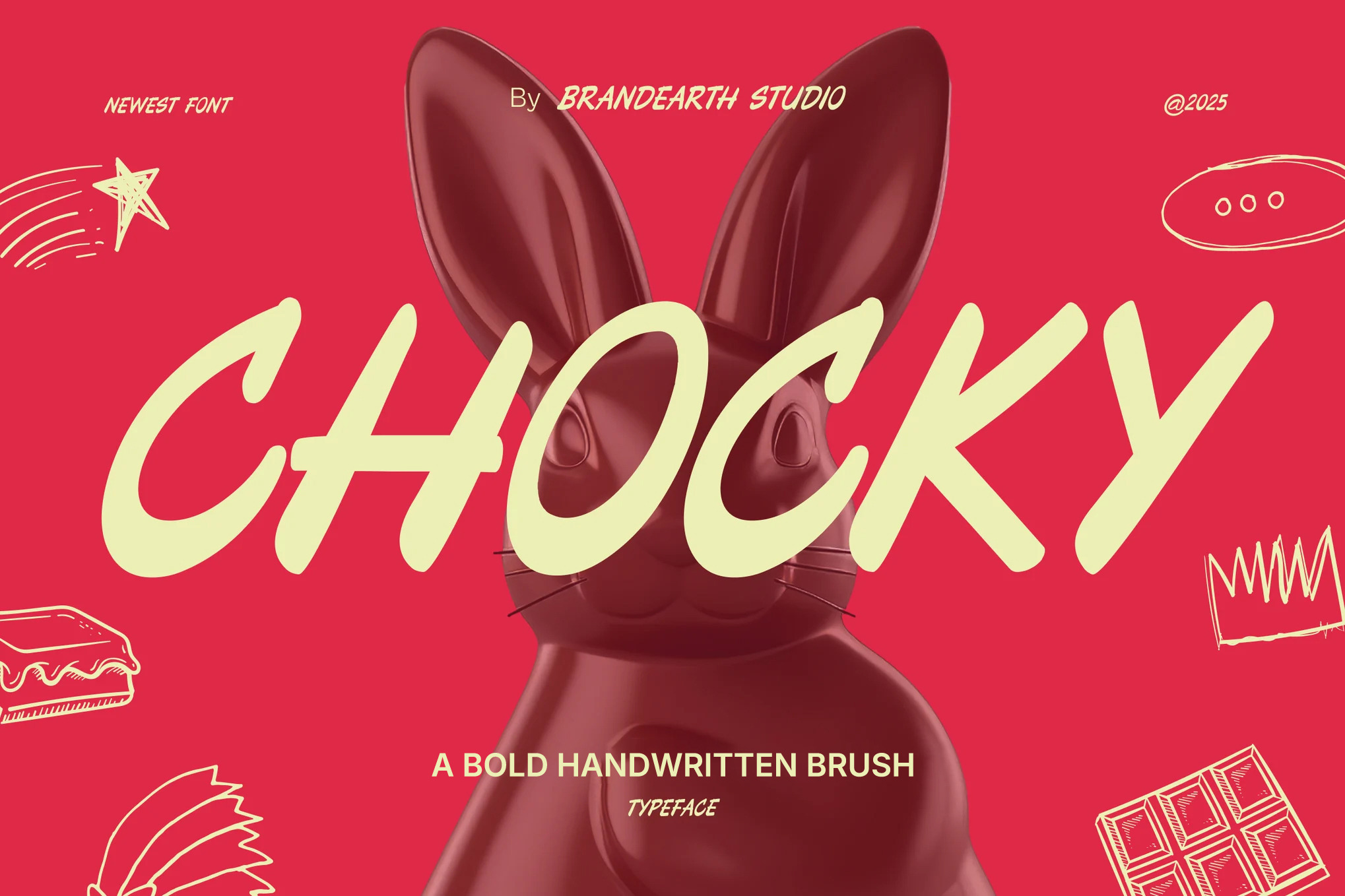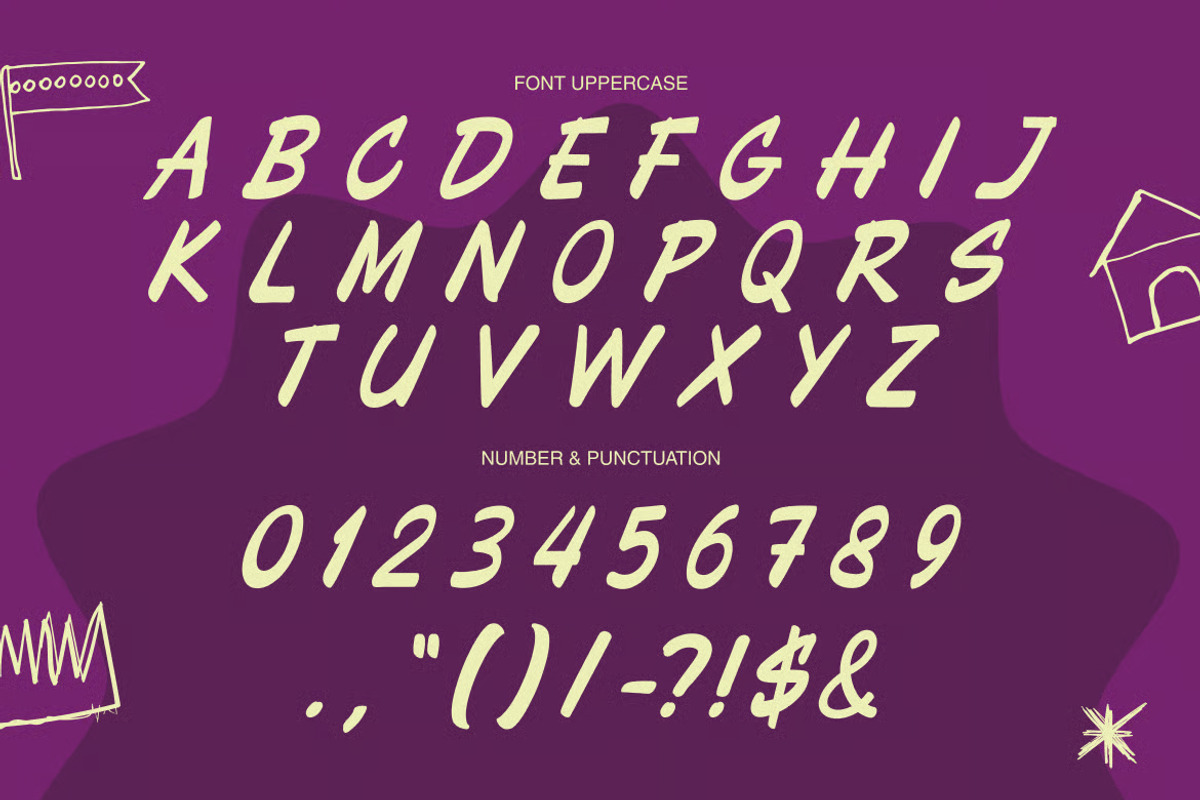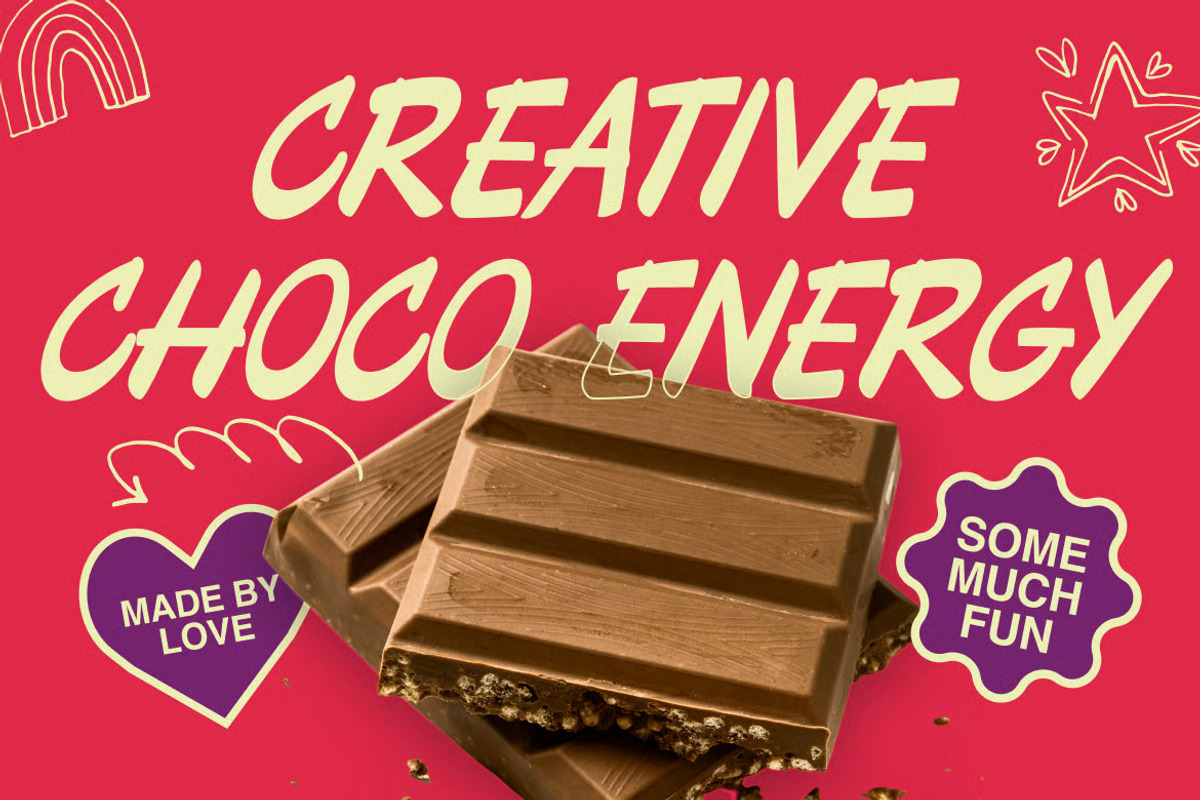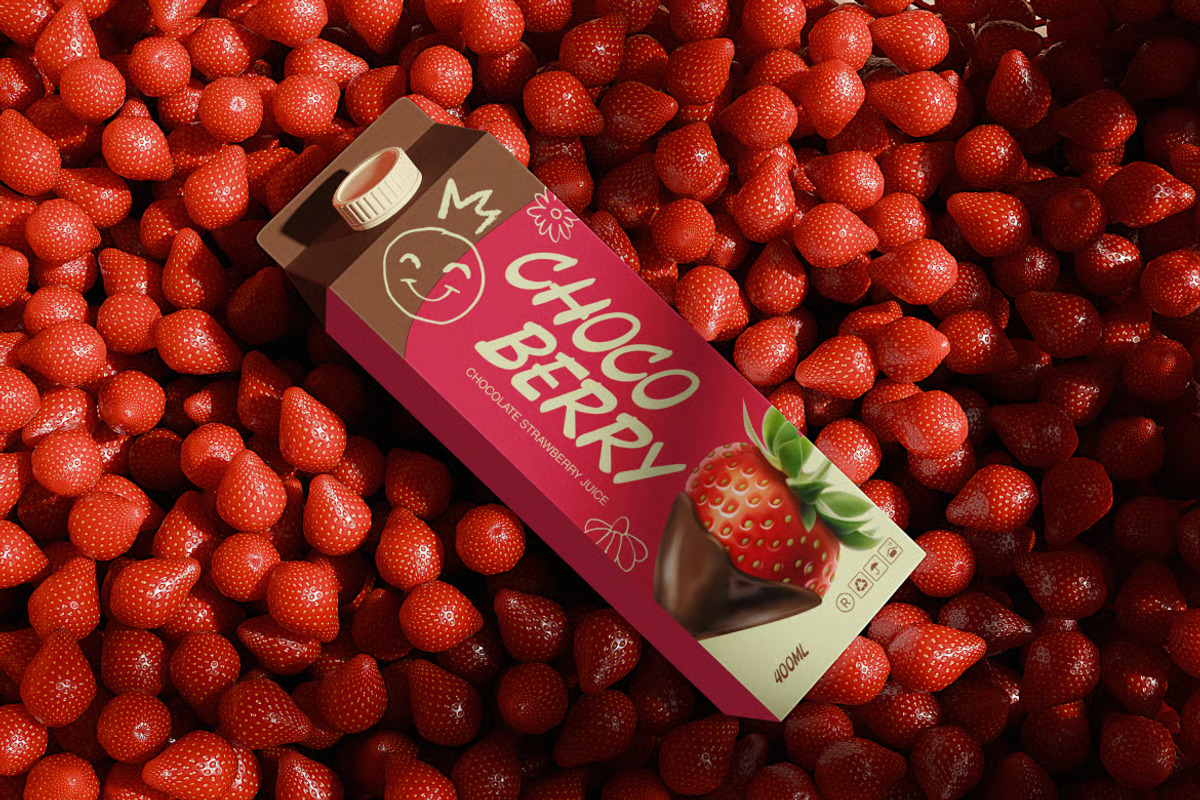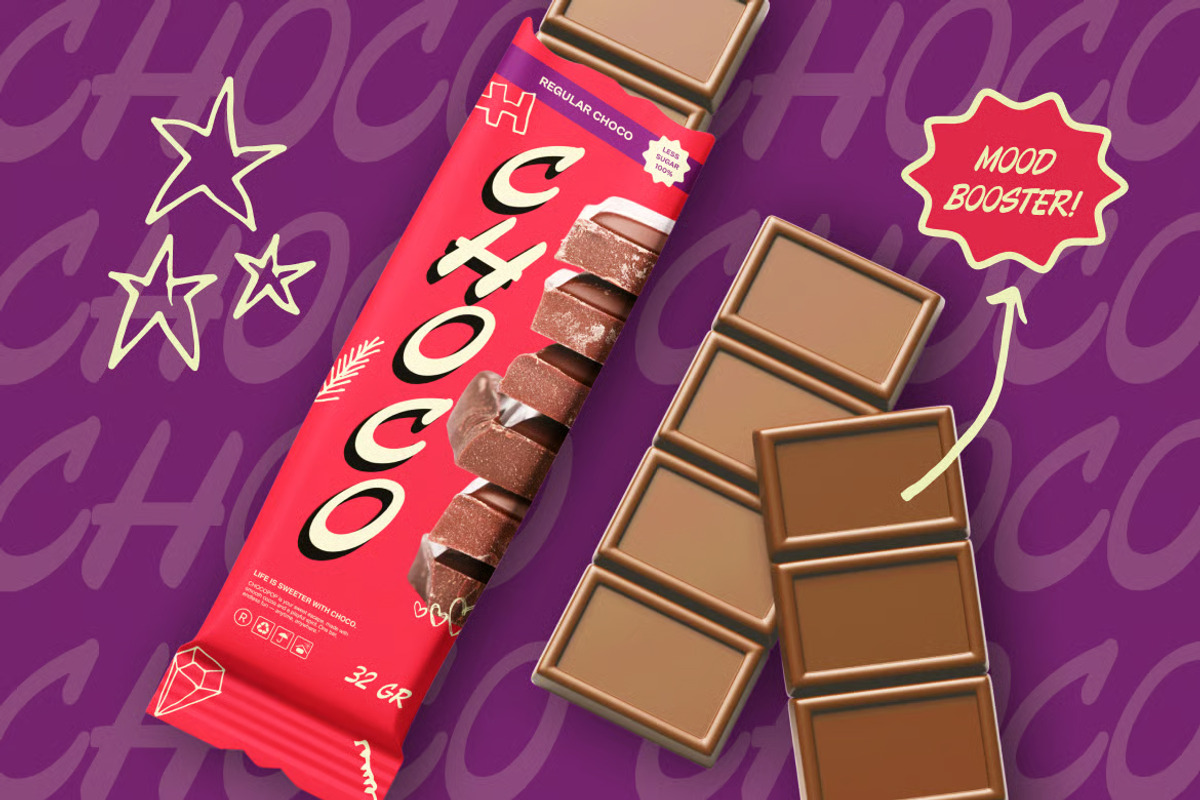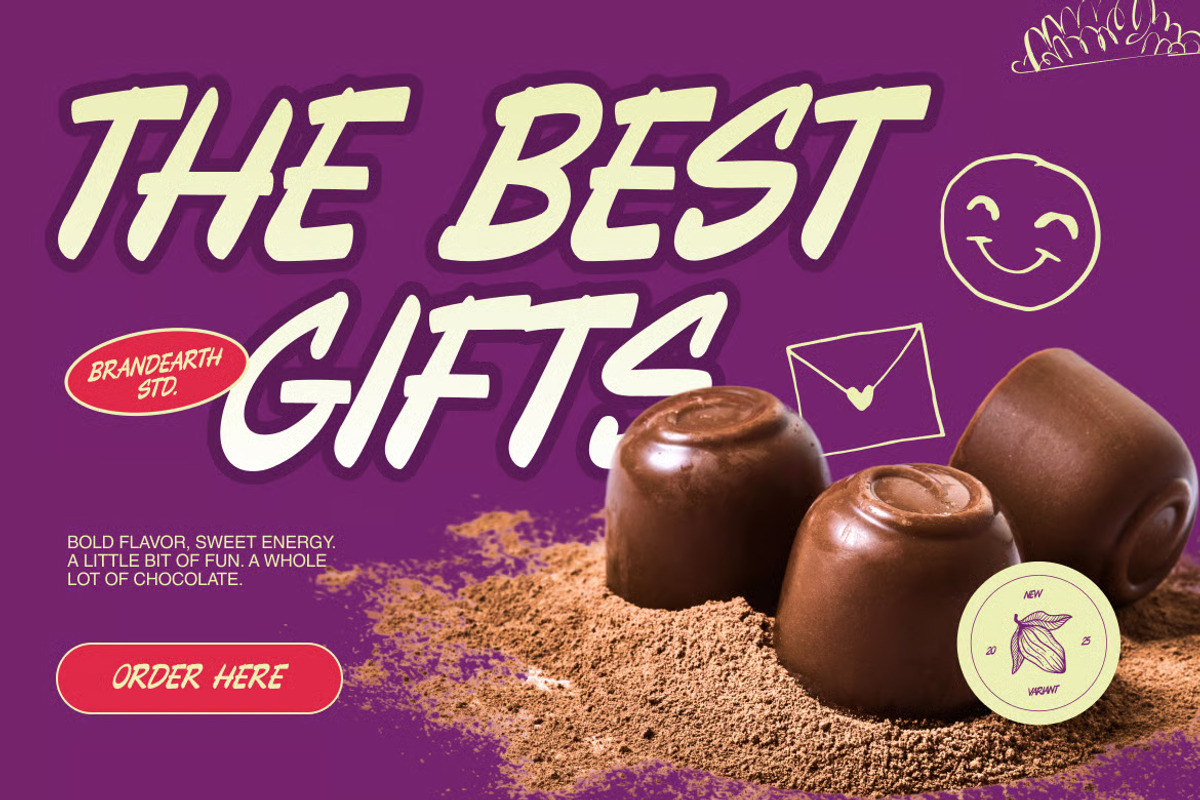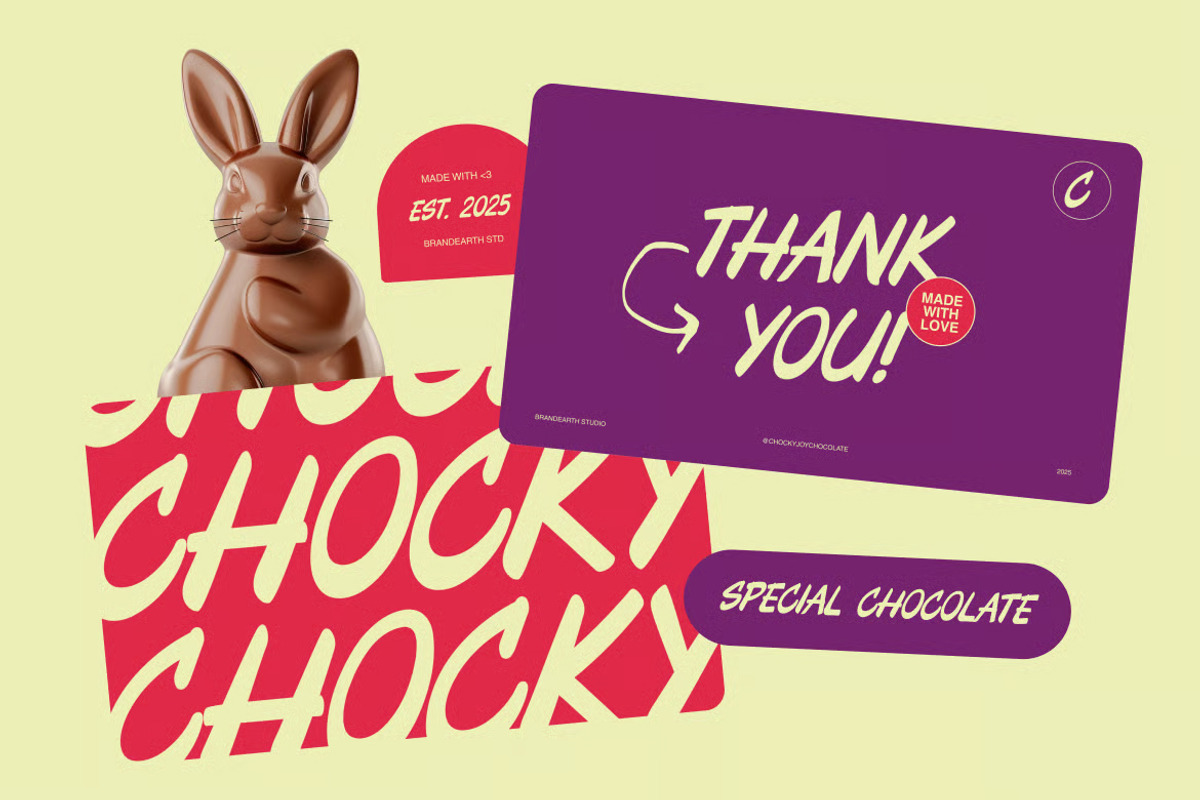
Chocky - Bold Handwritten Brush Font
Chocky is a bold and energetic handwritten font with a chunky yet casual vibe. Inspired by sweet treats and creative expression, this typeface features uppercase letters with playful brush strokes that bring a lively and friendly feel to any design. Chocky is ideal for food-related branding, snack packaging, children's product labels, and creative advertising. Its charming imperfections and bouncy letterforms make it highly engaging in both print and digital projects. Comes with uppercase alphabet, numbers, punctuation, and expressive glyphs to add flavor to your visuals.
The letterforms in Chocky are built with thick, bouncy strokes and a casual tilt, creating a playful, energetic rhythm that gives the typeface its chunky, handwritten character. It features a lively display quality that's perfect for snack branding, kids' packaging, and fun food-related visuals.
With its bold weight and charming imperfections, Chocky bridges the gap between playful energy and confident readability. It delivers a friendly, engaging feel while remaining highly legible, making it ideal for dessert packaging, café branding, and bold menu headers.
Main Features
Ligatures & Alternate
Numeral & Punctuations
Suitable For: snack product branding, chocolate and candy packaging, kids product design, casual café logos, food festival posters, bakery signage, food blog headlines, social media food content, sweet shop branding, playful food labels, dessert packaging, bold menu headers.